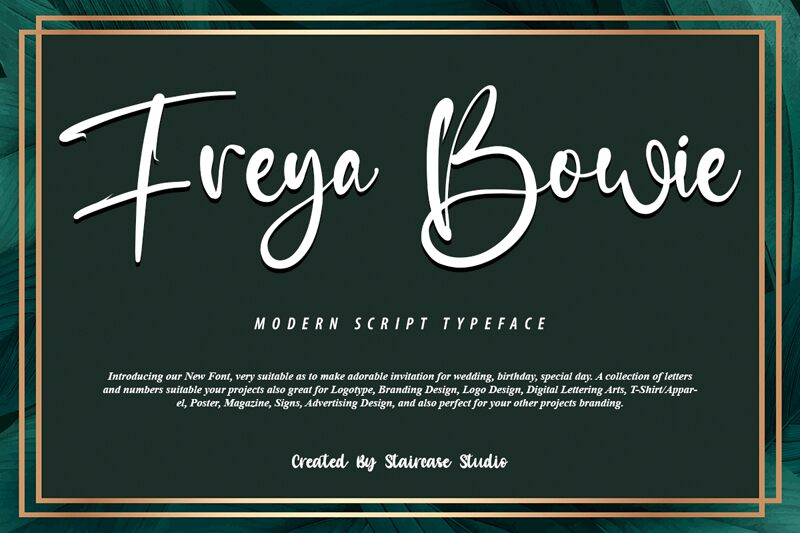
Freya Bowie
Freya Bowie is the perfect font for adding a touch of modern elegance to your designs. With its semi-light weight and flowing script style, this font is ideal for projects such as wedding invitations, fashion branding, and luxury product packaging. Designed by Staircase Studio, Freya Bowie embodies a sense of sophistication that will elevate any project it's used in. The graceful curves and sweeping lines of this font make it a great choice for both print and digital mediums. Add a touch of refinement to your next design with Freya Bowie.